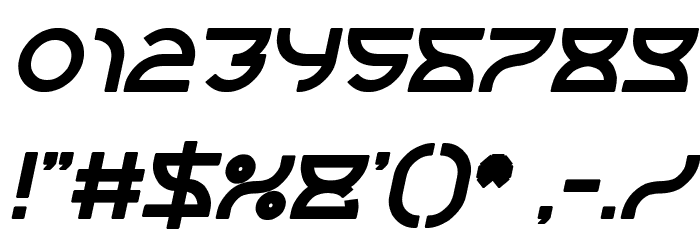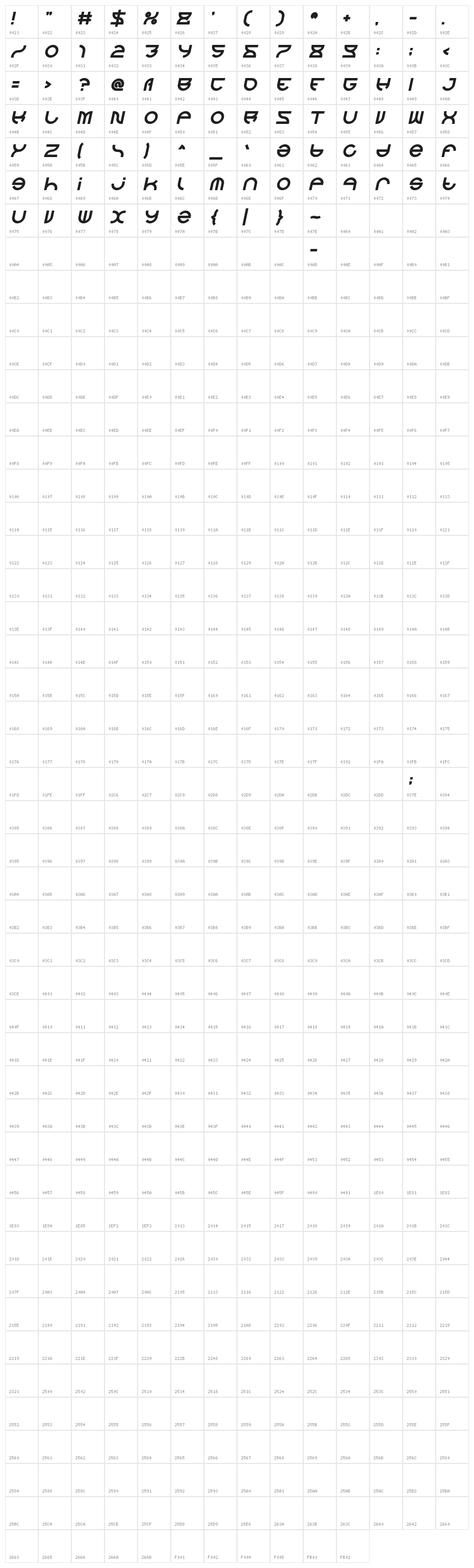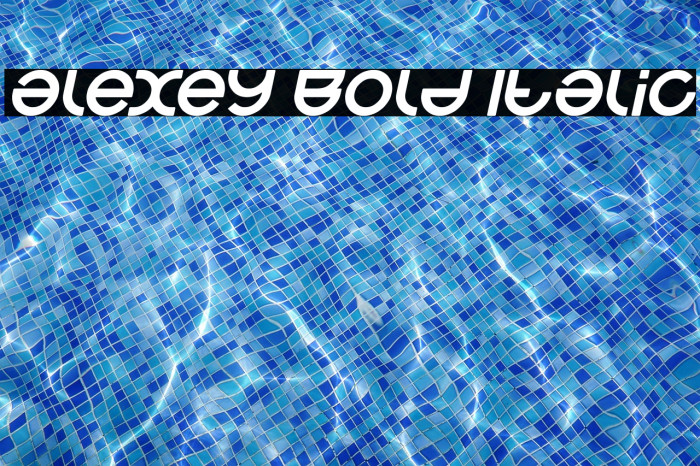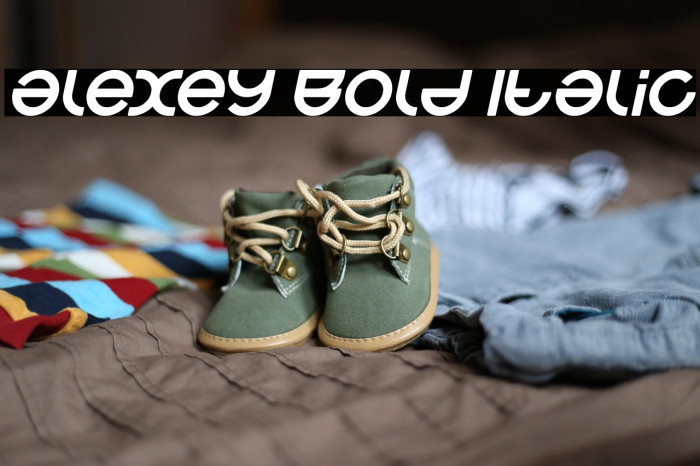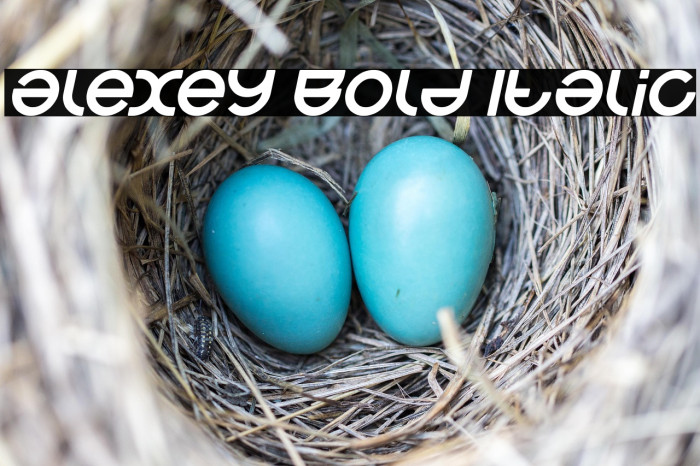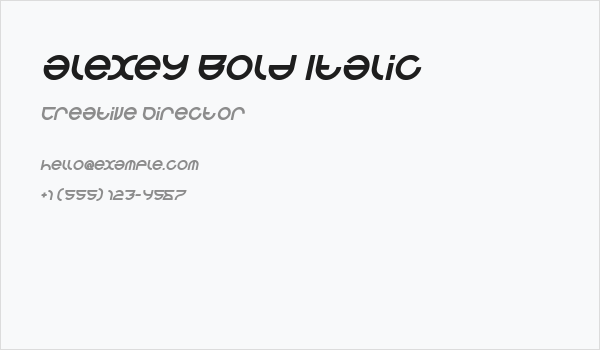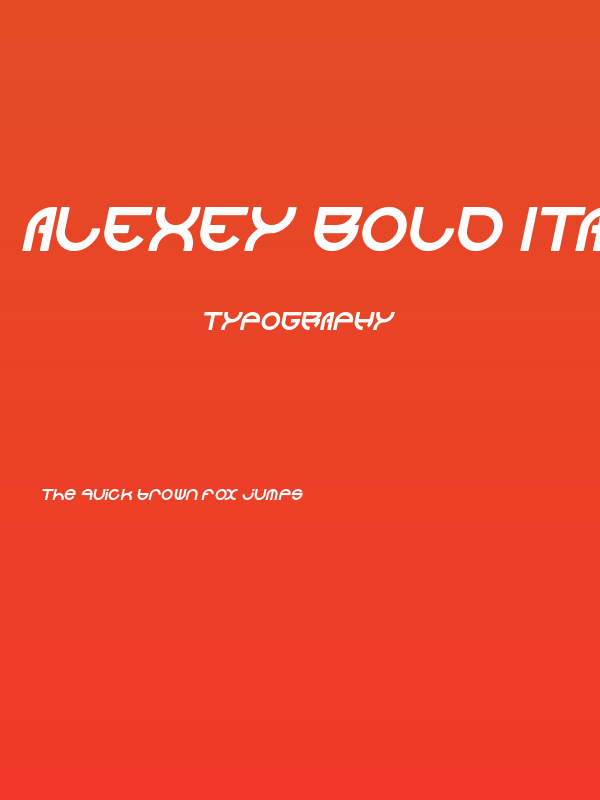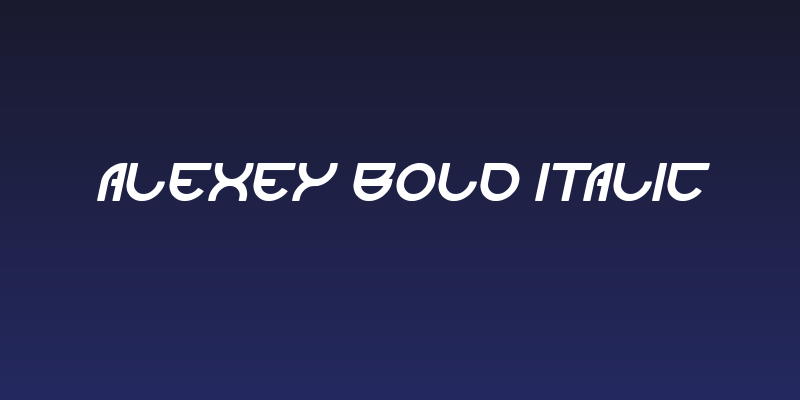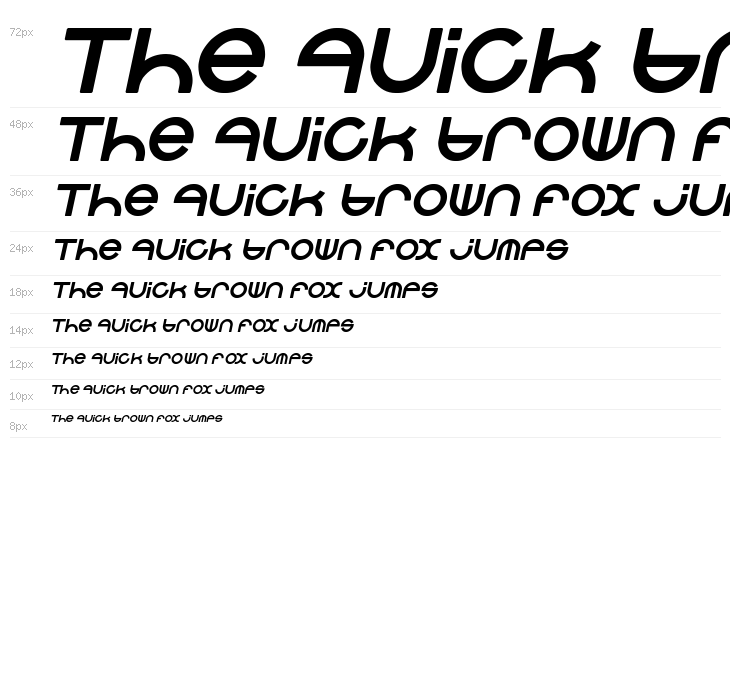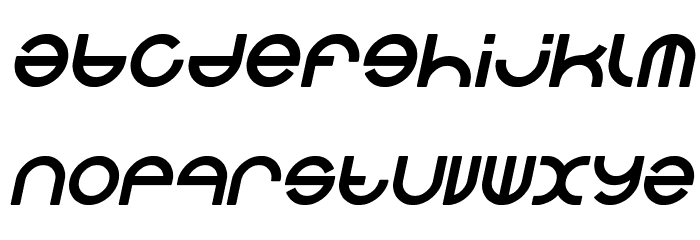
alexey Bold Italic Font
alexey Bold Italic Description
This font features a bold and italicized style with a futuristic and geometric design. The characters are uniquely crafted with sharp angles and smooth curves, creating a dynamic and energetic appearance. The uppercase letters are particularly striking, with distinct shapes that make them stand out. The lowercase letters maintain a consistent style, complementing the uppercase with their rounded forms. Numbers and special characters are designed to match the overall aesthetic, ensuring a cohesive look across all text. The font's bold weight and italic slant add to its modern and edgy vibe, making it suitable for projects that require a strong visual impact.